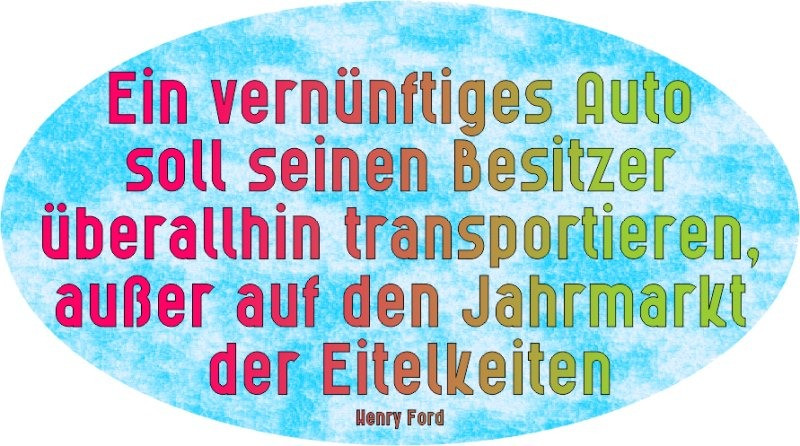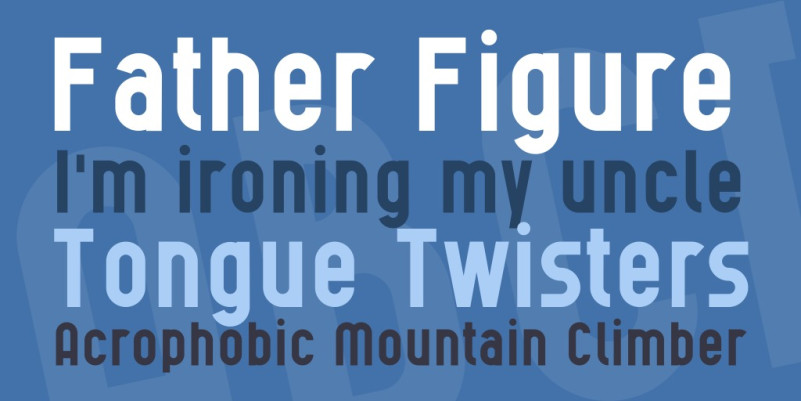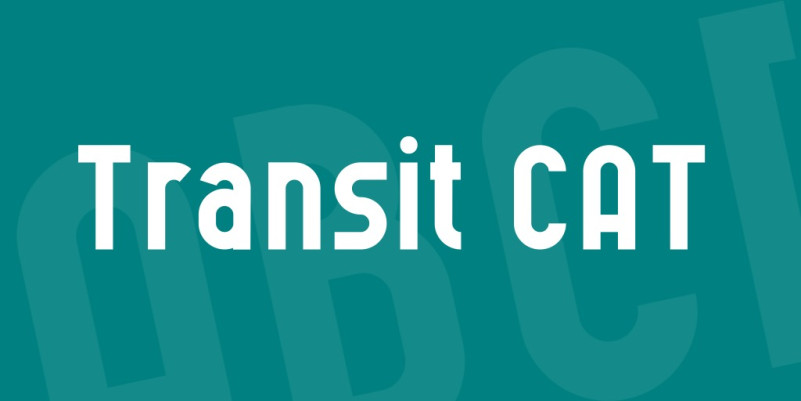
Transit CAT Font
Transit CAT Font, This is again a sign painter’s font, which, similar to the old DIN 1451, is constructed with an auxiliary grid. Such fonts were used a lot for vehicle lettering, especially on vehicle doors. They could be cut into tinfoil glued to the sheet metal with sugar water and then painted.